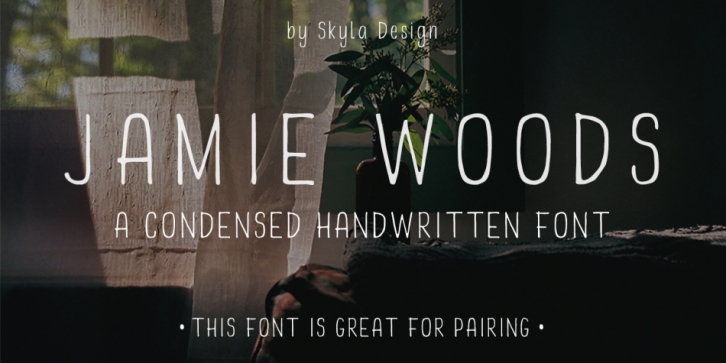
Designed by Skyla Design, Jamie Woods is a hand drawn font published by Skyla Design.
Jamie Woods is a condensed, handwritten font which will look great on your designs and branding materials. This font also works perfectly when pairing it with a script font.